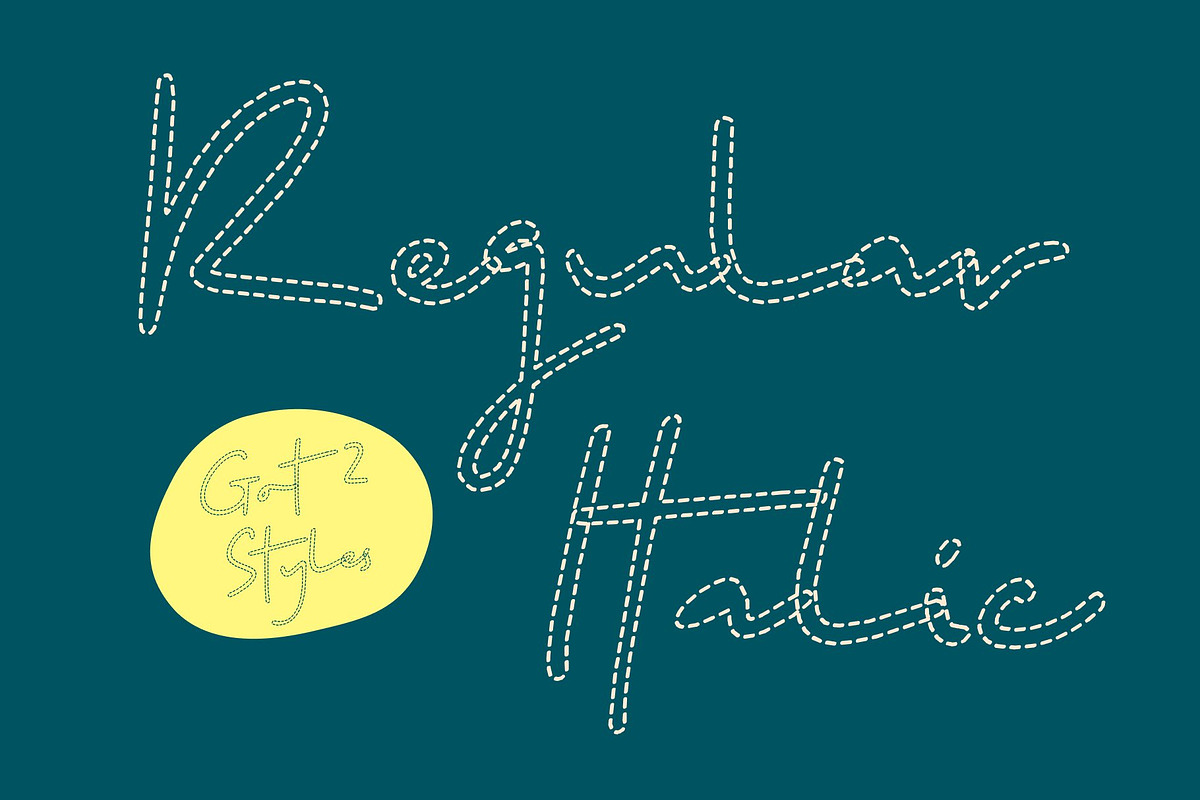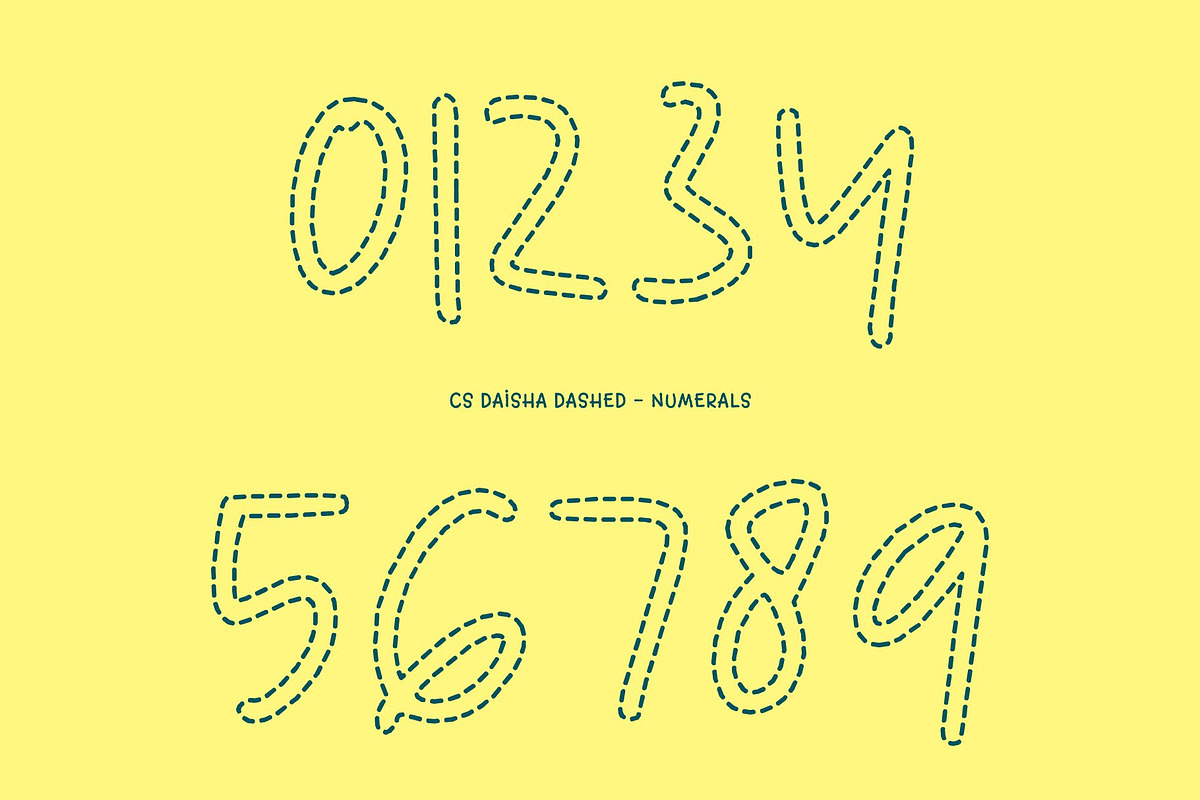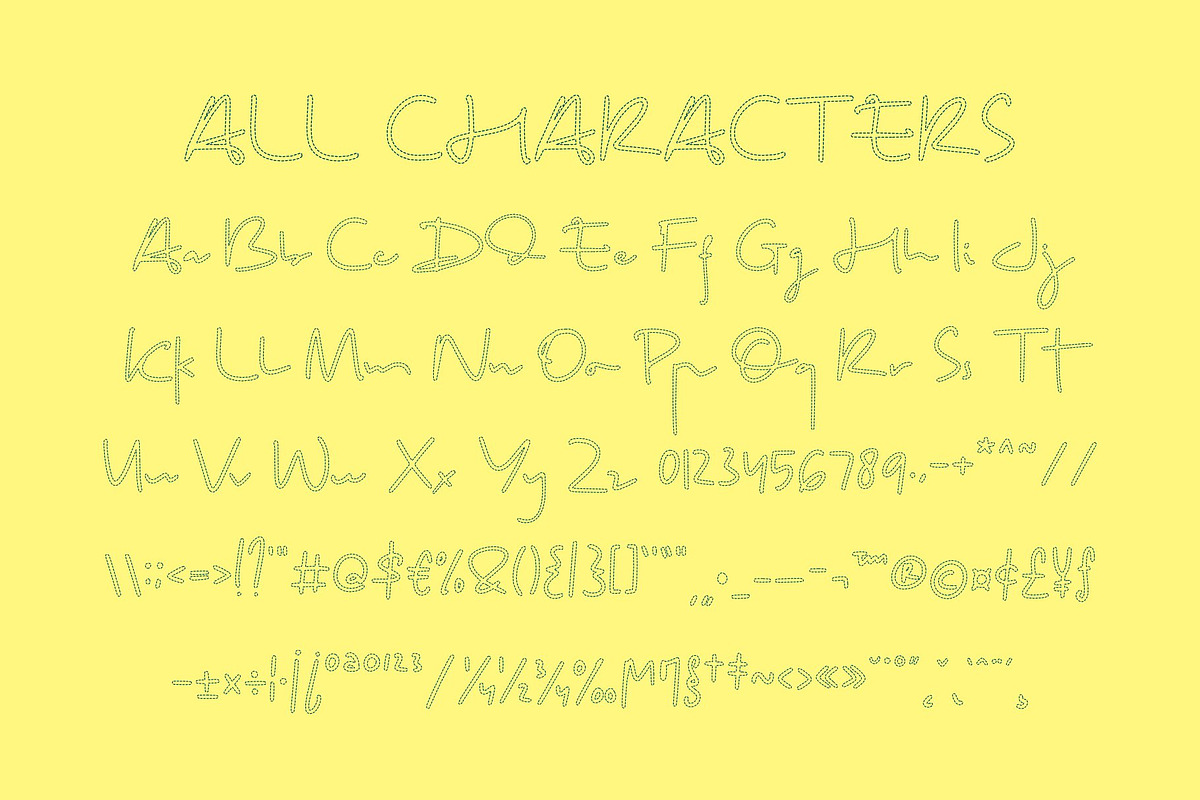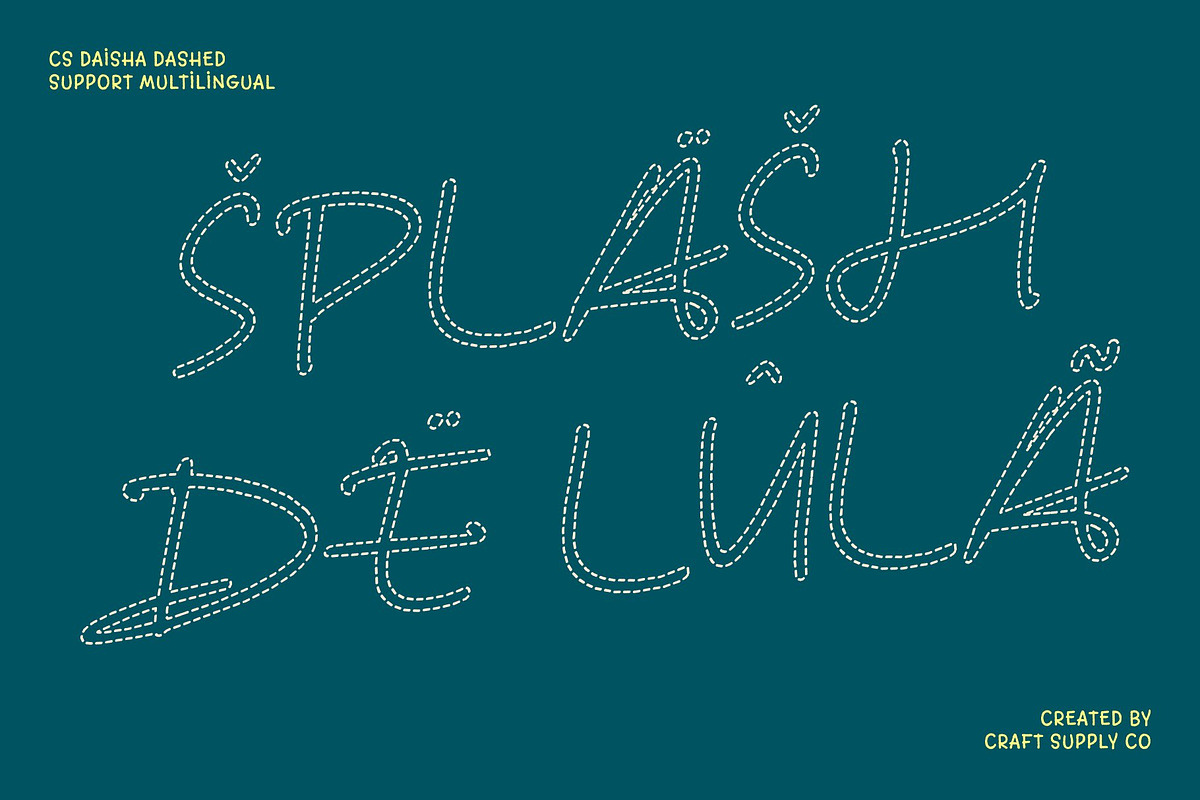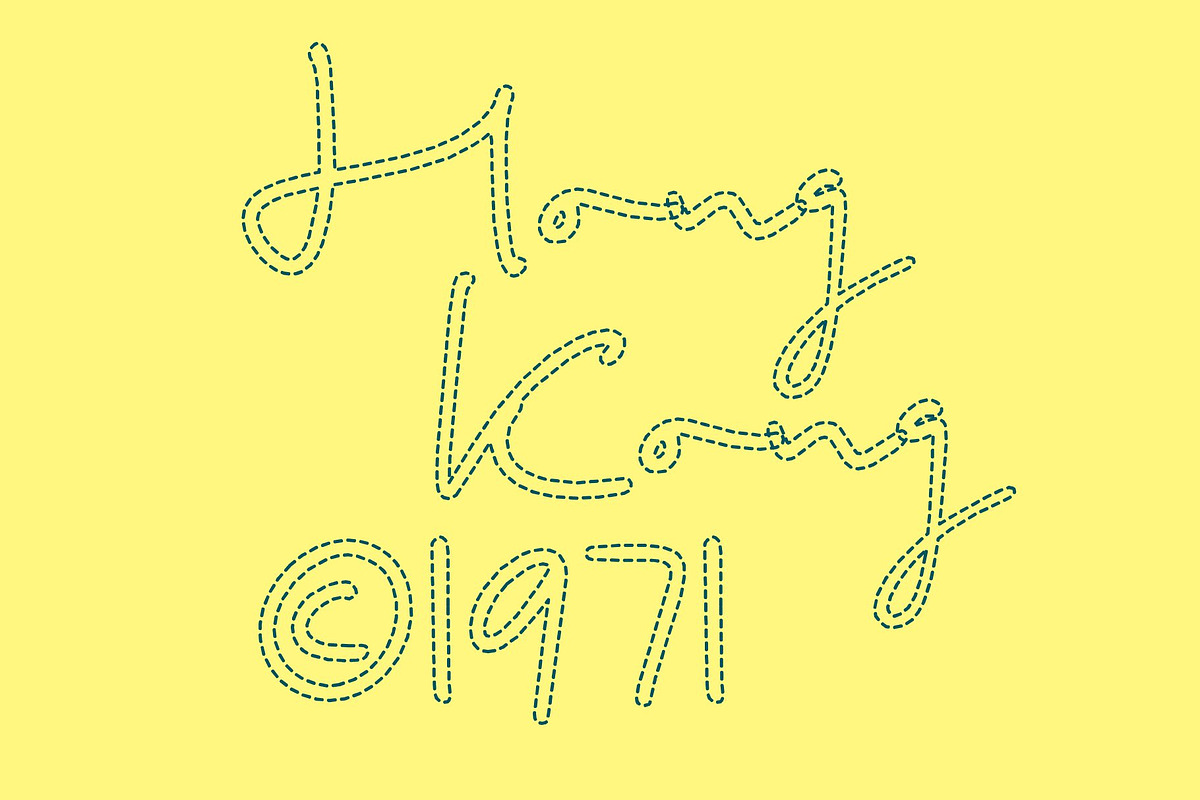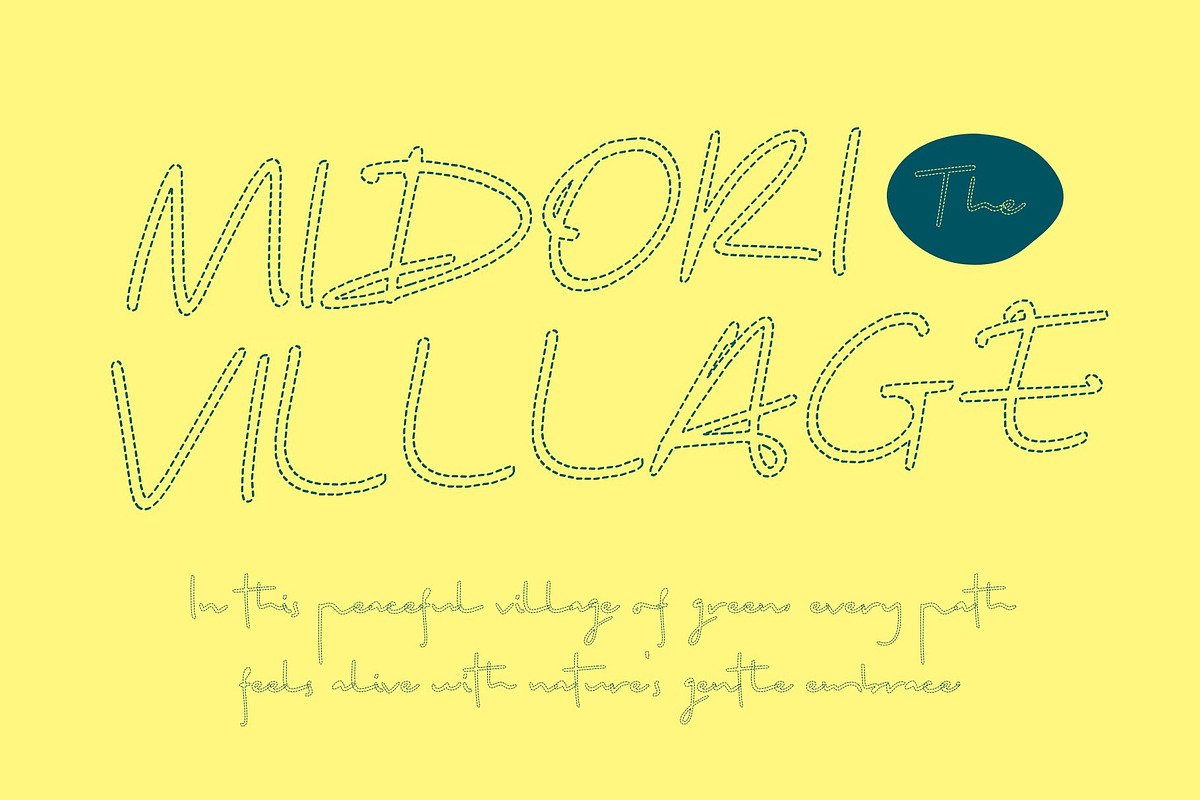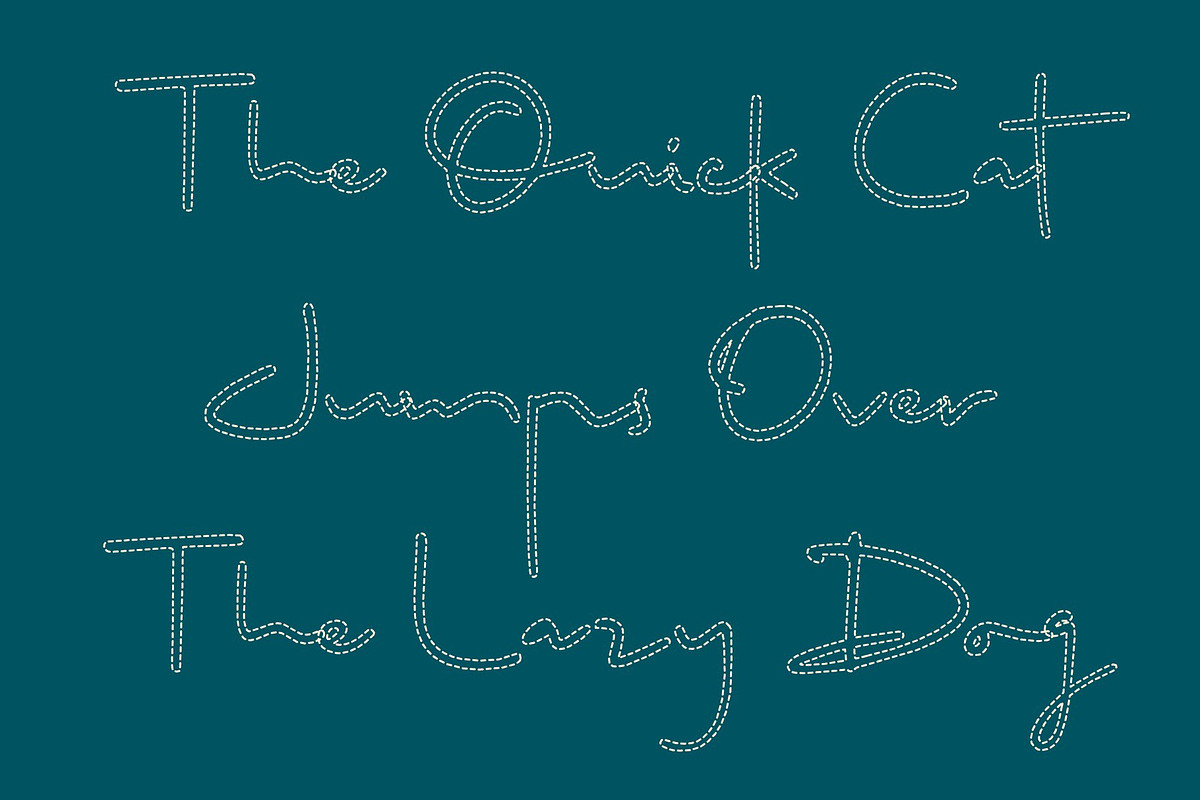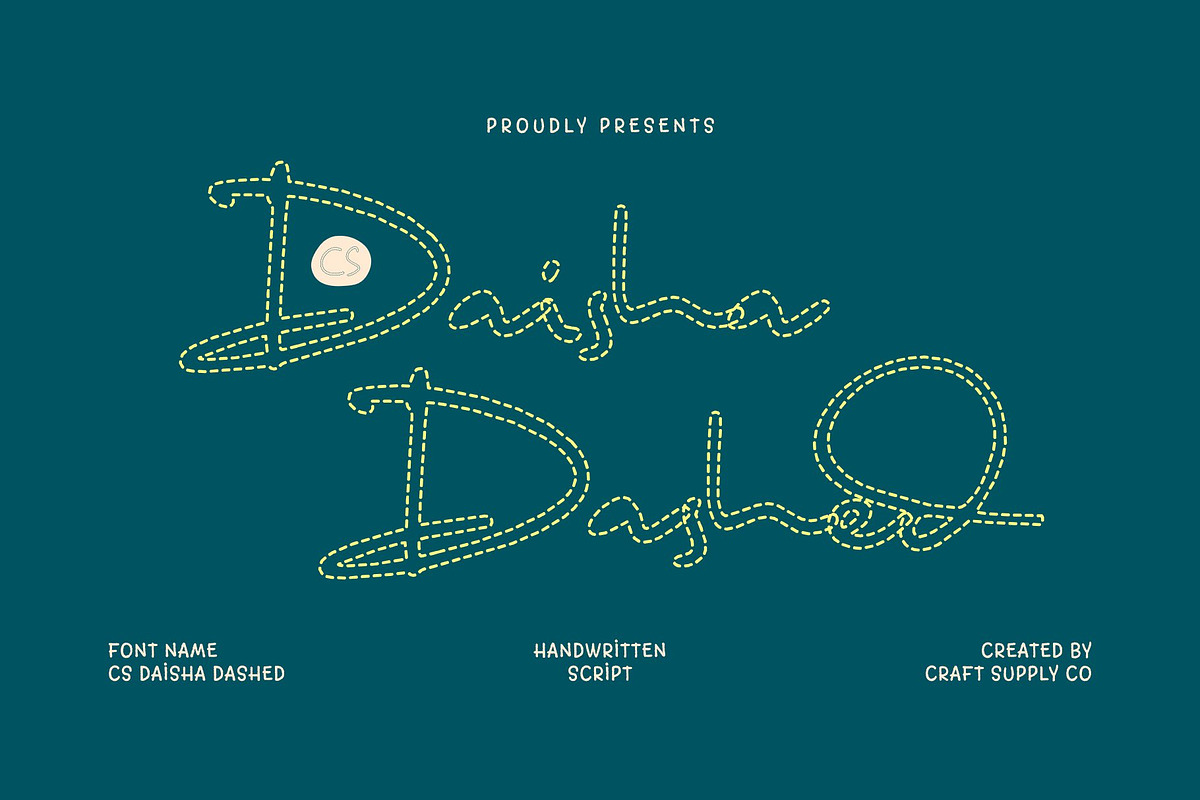
CS Daisha Dashed
CS Daisha Dashed – Soft Handwritten Expression with Natural Warmth
Handwritten Script Font with Organic Character This is a soft and expressive handwritten script font designed to capture the sincerity of natural pen strokes. Inspired by real handwriting, it delivers a warm and personal feel that instantly connects with the viewer. Its gentle flow and organic movement make it ideal for designs that value authenticity, emotion, and a human touch.
Dashed Strokes with Natural Expressive Detail The defining feature of its distinctive dashed style. The letterforms are constructed with broken, segmented strokes rather than solid continuous lines, creating a light and airy visual rhythm. These short-line segments mimic delicate pen trails, enhancing the organic handwritten appearance while adding a subtle artistic twist.
Relaxed, Warm, and Inviting Personality The dashed construction gives the font a softer, more casual tone, reinforcing its friendly and approachable nature. Each curve feels effortless and flowing, while the segmented strokes introduce a playful handcrafted quality. This combination makes the font perfect for conveying creativity, comfort, and emotional warmth in a visually distinctive way.
Perfect for Branding, Quotes, and Invitations This is well-suited for personal branding, inspirational quotes, casual invitations, packaging, social media graphics, and lifestyle designs. Its authentic handwritten style paired with the dashed effect makes every word feel intimate and thoughtfully crafted. Ideal for small businesses and creative projects, this font transforms text into a relaxed yet expressive visual statement.